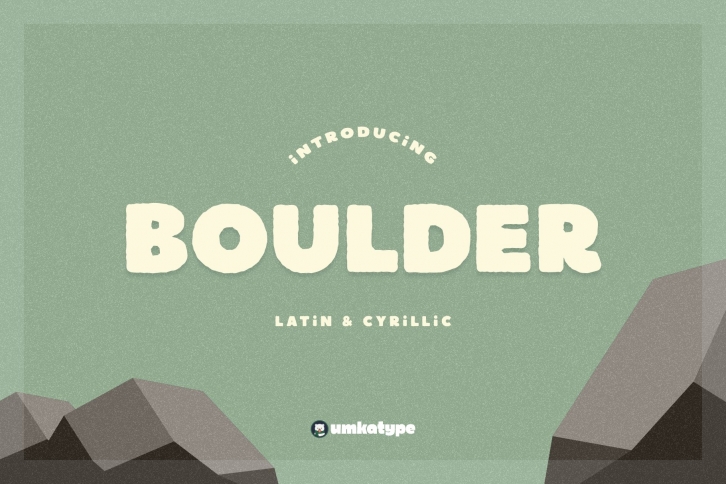
Boulder - A Display Font
- Boulder is a carefully crafted display font.
- Multilingual: It has Extended Latin and Extended Cyrillic letters.
Boulder created for games, web design, branding and social media works.